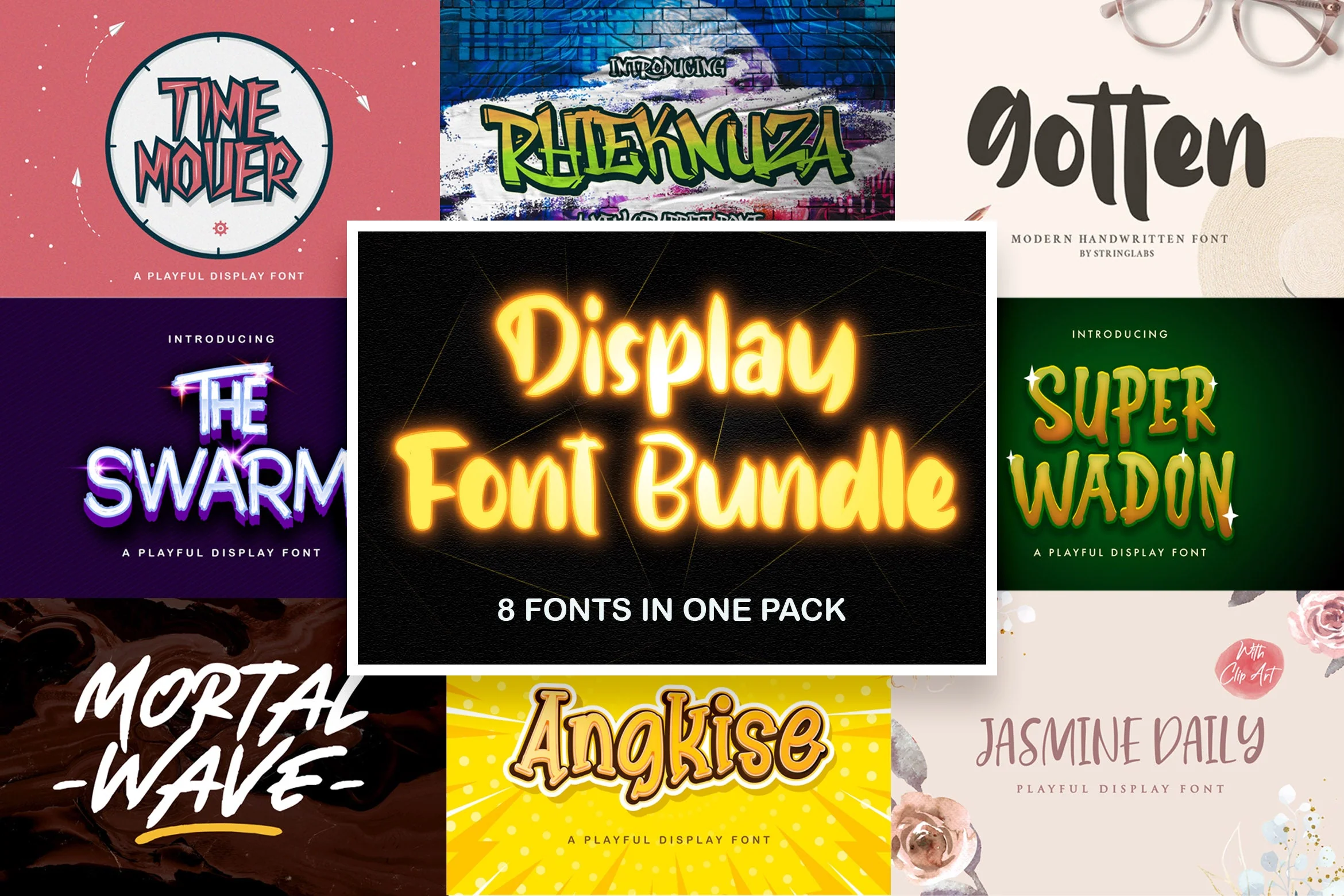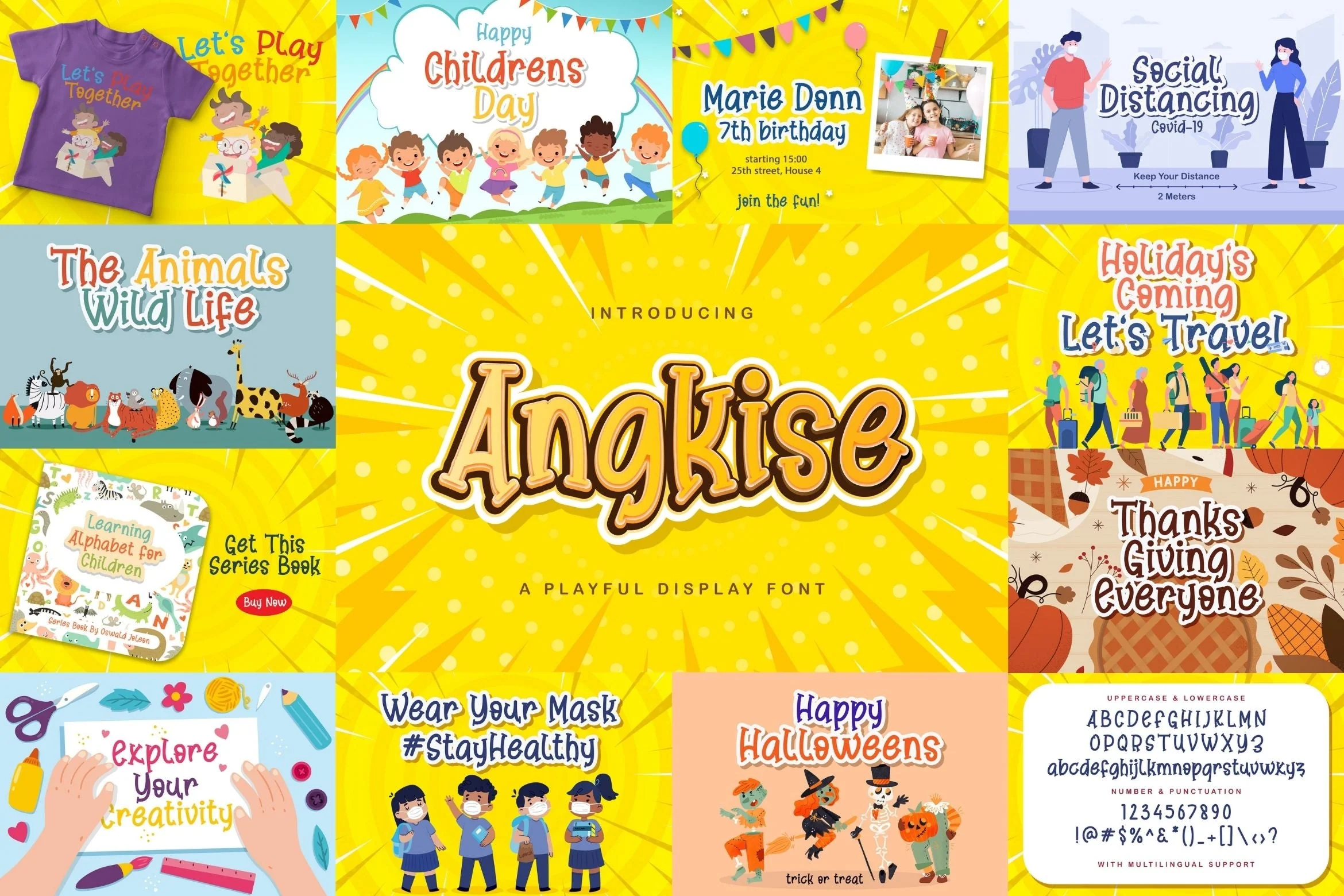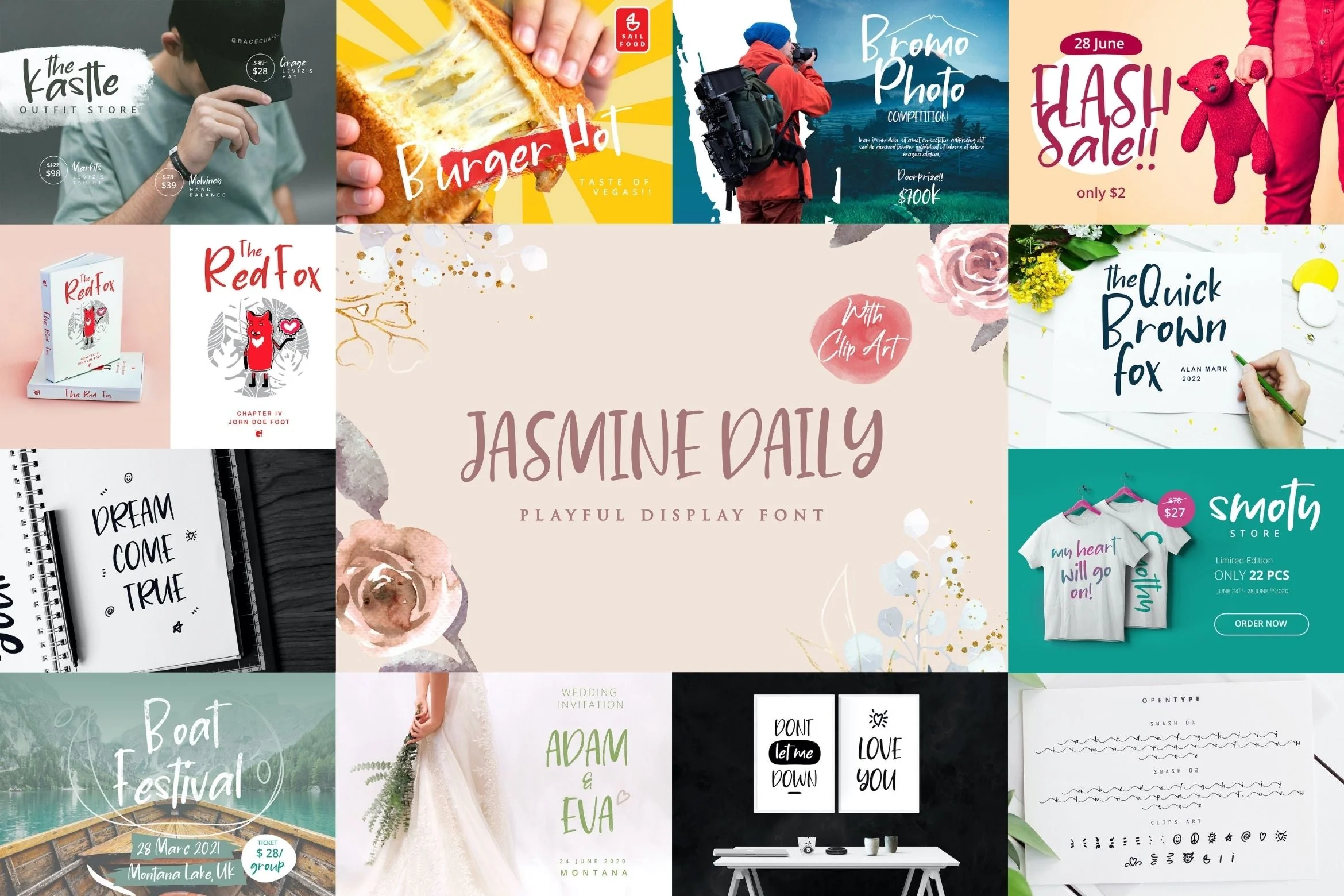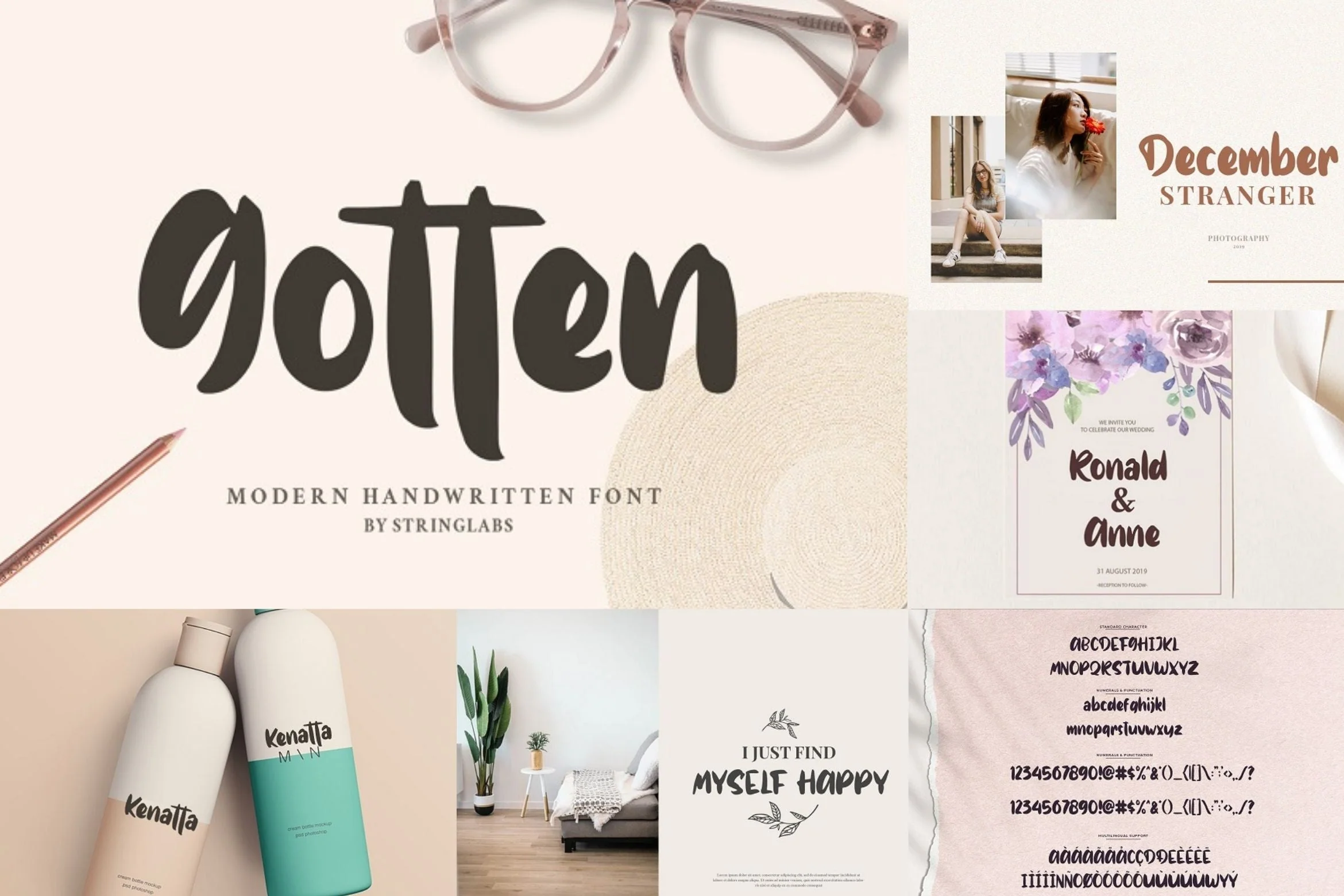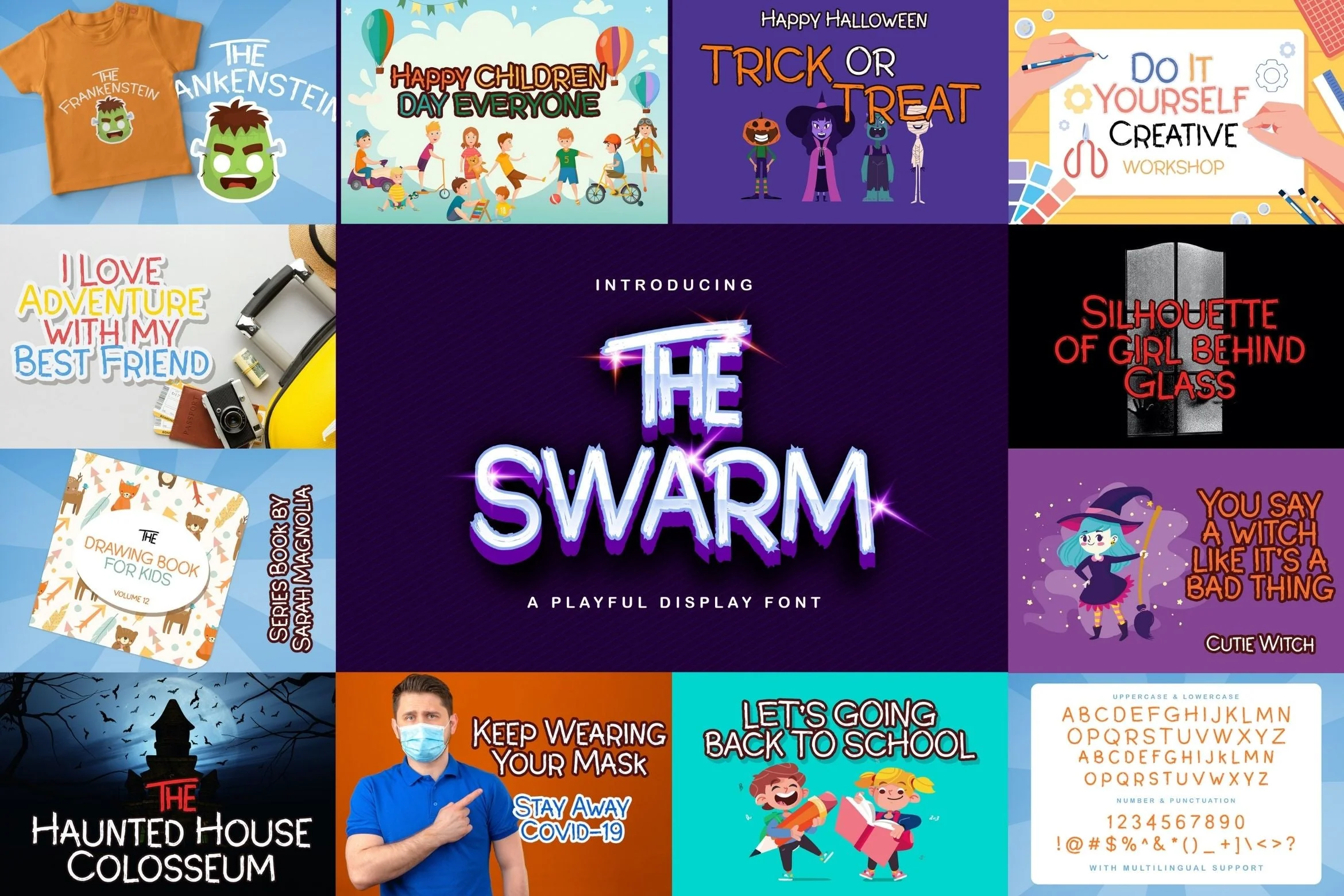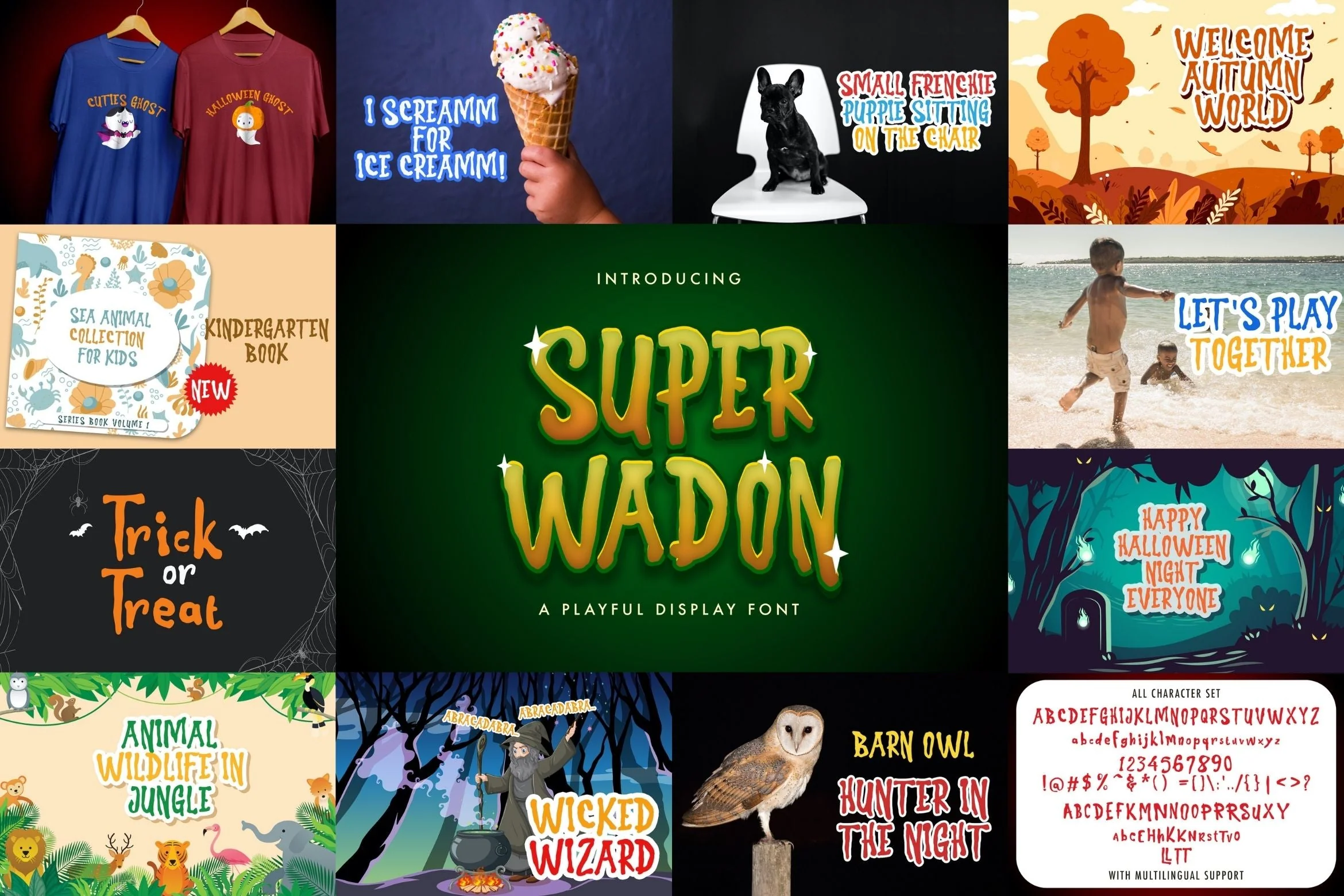
Display Font Bundle
Display Font Bundle is gorgeous display font with decorative style. This font bundle contains 8 high quality display font, it will look simply magical in a wide range of design projects, and also that will look particularly adept when used in logos, branding, packaging design, and much more. This masterfully designed display font is a true must-have.
1. Time Mover
2. Super Wadon
3. The Swarm
4. Gotten
5. Rhieknuza
6. Mortal Wave
7. Jasmine Daily
8. Angkise